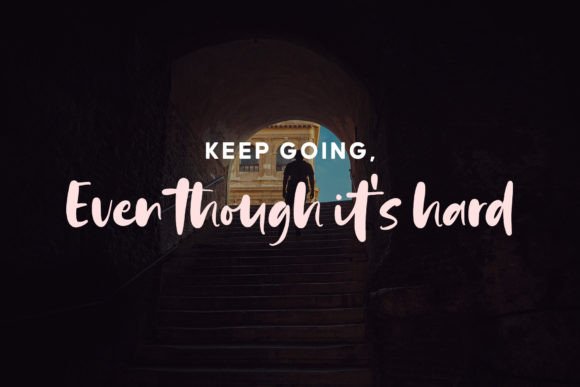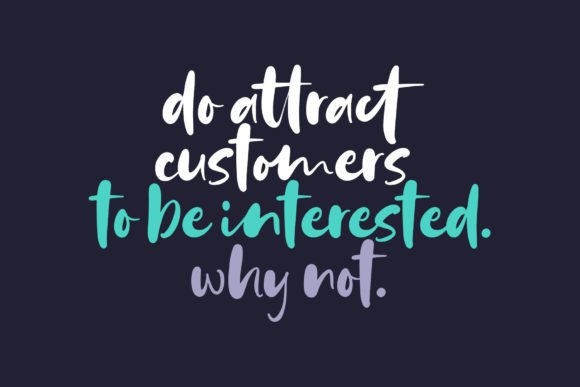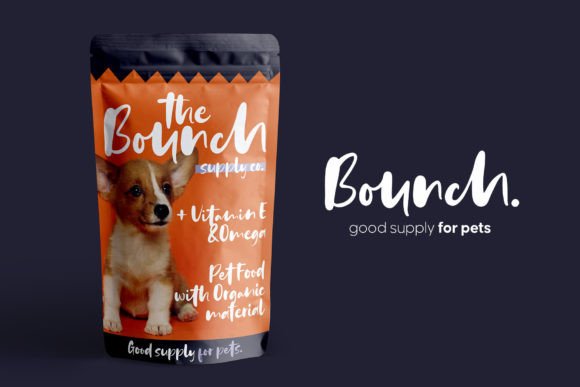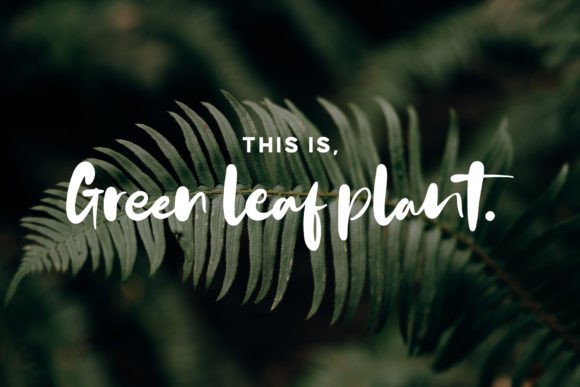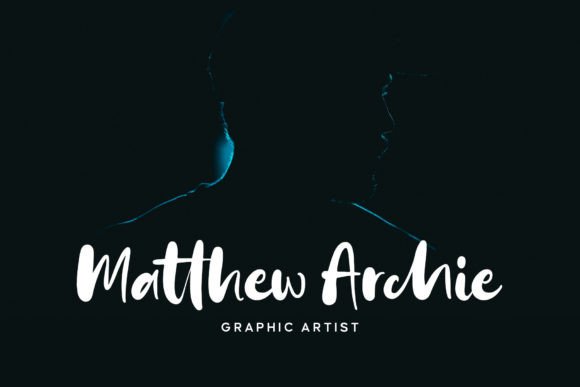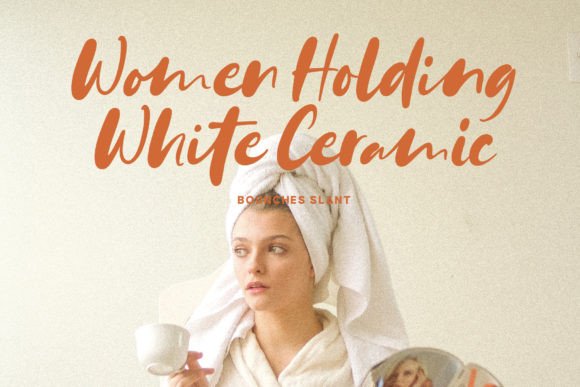
The Perfect Pen Stroke: Introducing Bounches Font
Have you ever stared at a blank sheet of paper, waiting for the perfect idea to strike? The blank page can be intimidating, but it’s in these moments that creativity truly flourishes. It’s the spark that sets off a chain reaction of imagination and innovation. For designers, this moment is crucial, as it’s where the magic happens.
That’s why we’re excited to introduce you to Bounches Font, a fun and dynamic handwritten font that’s sure to bring your designs to life. With two styles to choose from – regular and slant – Bounches Font is perfect for branding, advertising, headlines, packaging design, and so much more. Whether you’re a seasoned designer or just starting out, this versatile font is a valuable addition to any toolkit.
- Unique Characteristics: Bounches Font features a distinctive, playful design with exaggerated rounded shapes and a loose, handwritten feel, making it ideal for creative and artistic applications.
Bounches Font Review
As a designer, I’ve had the chance to work with Bounches Font, and I’m excited to share my honest review with you.
Bounches Font is a playful, cursive script font that’s perfect for adding a touch of whimsy to your designs. I love its fluid, handwritten feel, which makes it ideal for titles, headings, and quotes.
- Unique, hand-drawn style that’s perfect for creating a sense of personality in your designs
- Wide range of languages supported, making it a great choice for international projects
- Works well in both digital and print applications
While Bounches Font is a great addition to any design arsenal, there are a few limitations to consider.
- May not be the best choice for body text, as it can be difficult to read in smaller sizes
- Lack of italics and bold weights can limit its versatility in certain designs
Overall, I think Bounches Font is a great choice for designers looking to add a touch of personality to their work. While it may have some limitations, its unique style and wide range of languages supported make it a valuable addition to any design library.
Getting the Most Out of Bounches Font
To get the most out of Bounches Font, try the following tips:
- Use Bounches Font in combination with other fonts to create a unique and eye-catching design.
- Customize the font color to match your brand or design scheme.
Bounches Font is commonly used for:
- Logo design and branding.
- Infographics and data visualizations.
- Print and digital marketing materials.
Alternatives to “Bounches Font” for Designers
Bounches Font is a popular sans-serif font, but designers may be looking for alternatives that offer unique characteristics. Here are a few options to consider:
Montserrat Font is a sans-serif font designed for digital use. It’s known for its clean lines, geometric shapes, and urban feel. It’s ideal for use in headings and titles, particularly in modern and tech-related projects. Compared to Bounches Font, Montserrat has a more angular and geometric appearance, making it suitable for projects that require a more edgy look.
Open Sans Font is a highly legible sans-serif font designed for digital use. It’s known for its clean lines, open shapes, and friendly feel. It’s ideal for use in body text and captions, particularly in projects that require a clear and approachable tone. Compared to Bounches Font, Open Sans has a more rounded and friendly appearance, making it suitable for projects that require a more approachable look.
Yes, Bounches Font can be used in digital applications such as mobile apps and video games. The font is designed to be highly legible at a variety of resolutions and screen sizes, making it suitable for use in a range of digital contexts.
Q: What is the recommended font size for optimal readability in Bounches Font?
For optimal readability, we recommend using Bounches Font at a minimum font size of 24 points (or 12 points for screen-based applications). This will help ensure that the font is legible and easy to read, even for users with visual impairments.